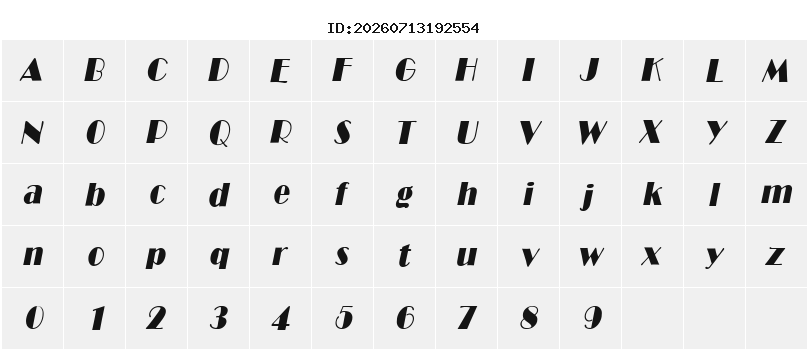
B821-Deco Preview
• Font Name: B821-Deco
• Font ID: SoftMaker Software GmbH B821-Deco-Italic
• Full Font Name: B821-Deco-Italic
• PostScript Name: B821DecoItalic
• Designer: SoftMaker Software GmbH
• Manufacturer: SoftMaker Software GmbH
About B821-Deco.ttf
B821-Deco.ttf is a modern, elegant sans-serif font designed for ultimate readability and visual harmony. Perfect for branding, headlines, web design, and print materials.